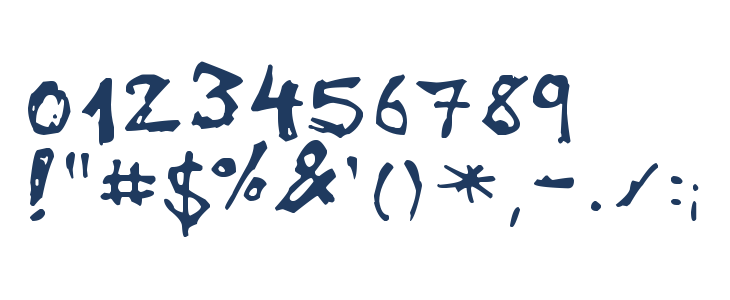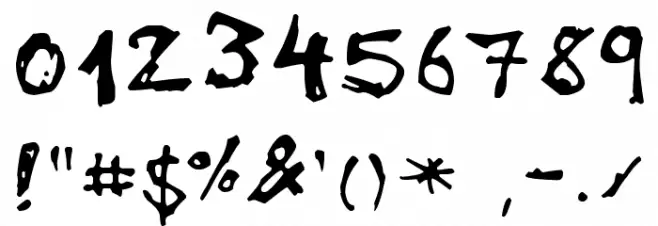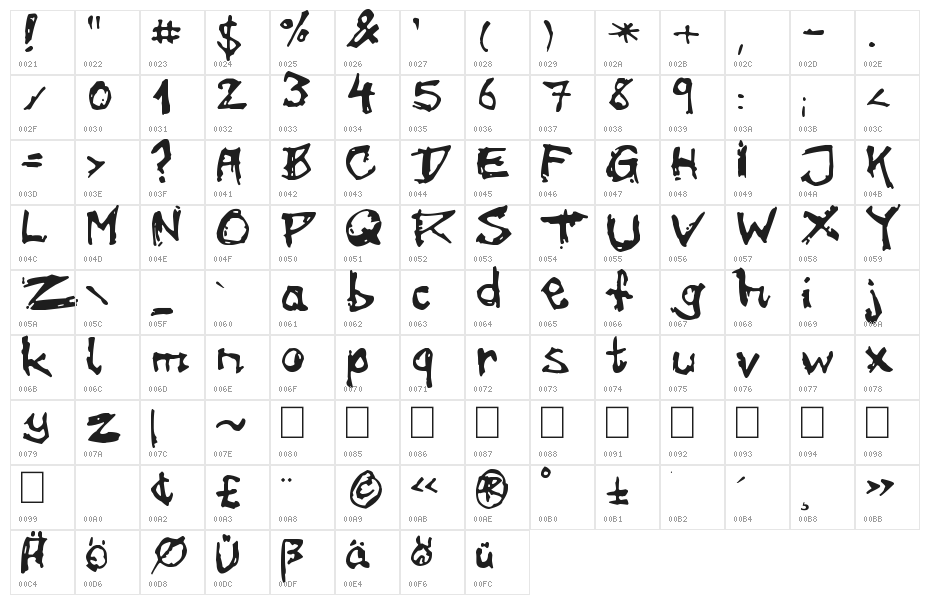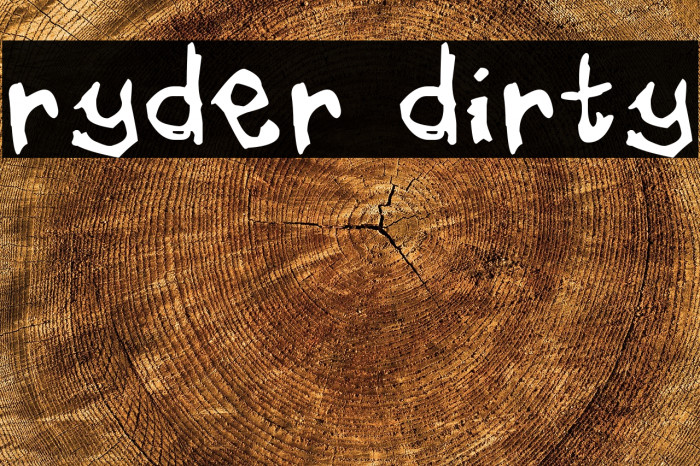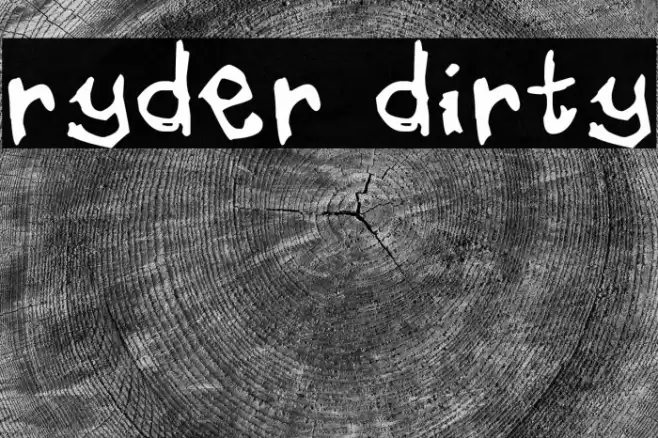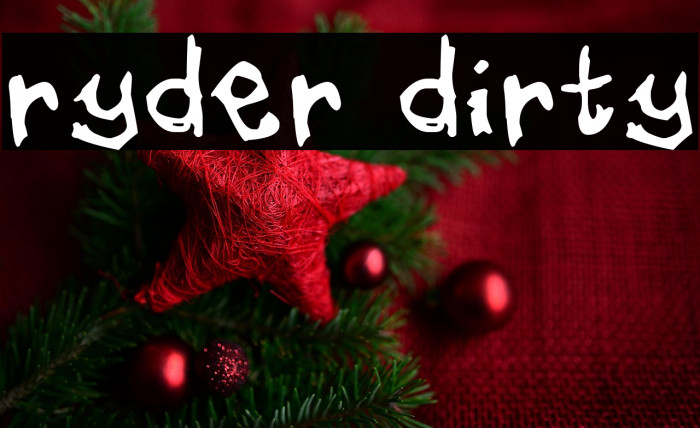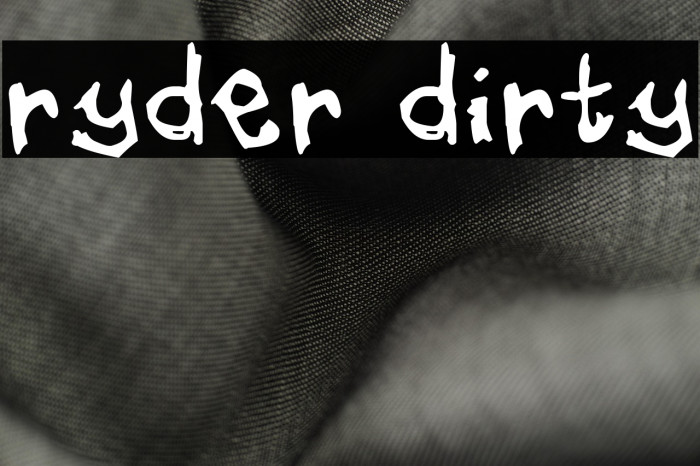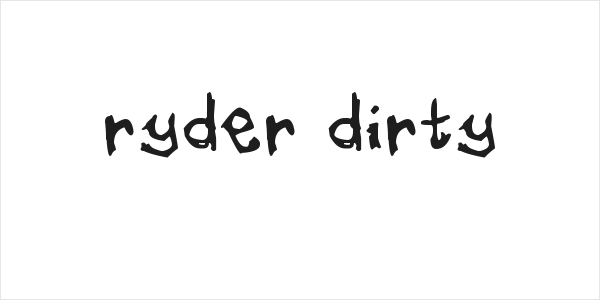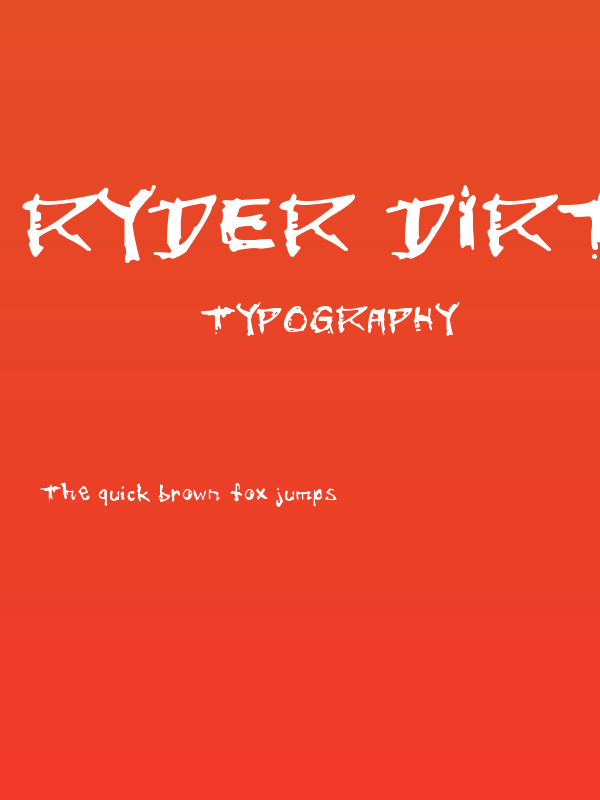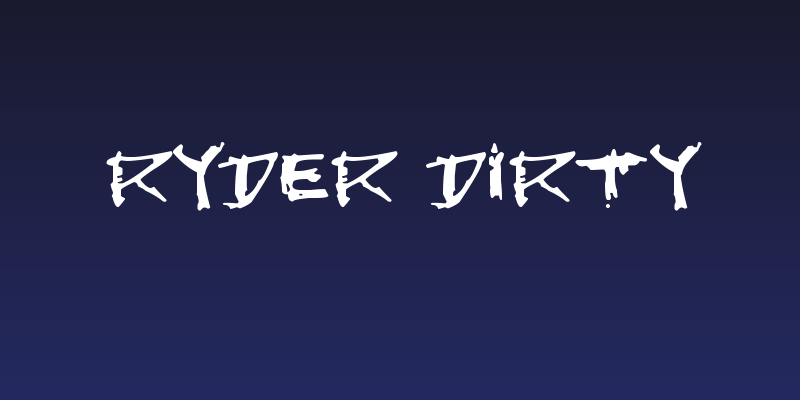
ryder dirty Font
ryder dirty Description
This font features a rugged, hand-drawn style with irregular edges and a bold, expressive appearance. The characters are designed to look like they have been painted with a brush, giving them a raw and dynamic feel. The uppercase and lowercase letters maintain a consistent style, with varying stroke thickness that adds to the font's energetic and spontaneous look. Numbers and special characters follow the same aesthetic, making the font versatile for creative projects. Its unique style makes it stand out, perfect for designs that require a bold and artistic touch.